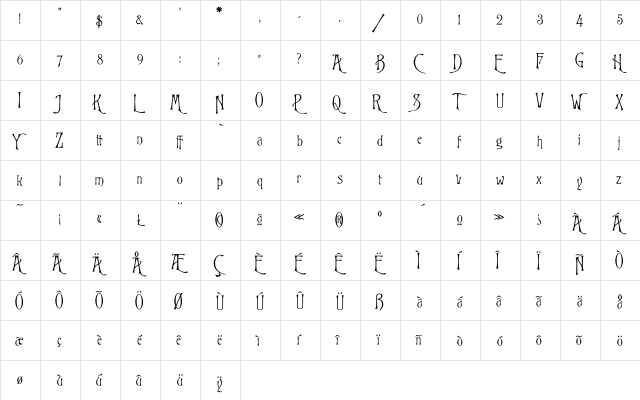
Glorietta Regular
Design Context for Glorietta Typeface
Glorietta is a composed and adaptable typeface that performs quietly and consistently across a wide range of design contexts.